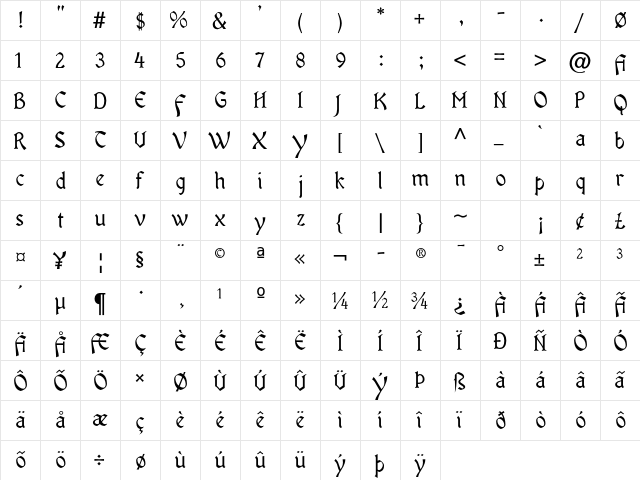
Oldania ADF Std Regular
| Foundry | Arkandis Digital Foundry. |
| Designer | Hirwen HARENDAL |
Design Context for Oldania ADF Std Typeface
Oldania ADF Std is a composed and adaptable typeface that performs quietly and consistently across a wide range of design contexts.